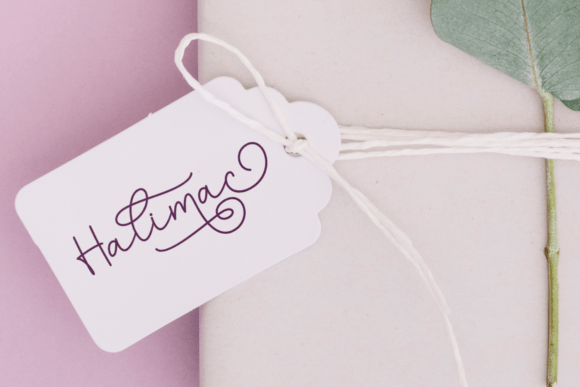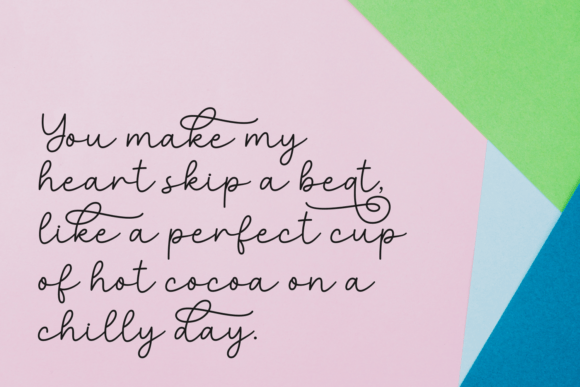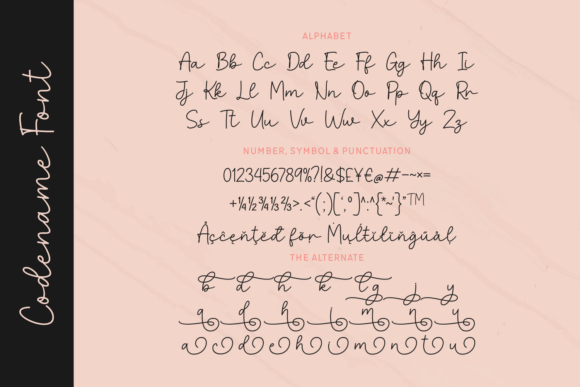
Codename Font: Elevate Your Designs with Elegance and Sophistication
In the world of typography, a font can make or break a design. For designers and crafters looking to add a touch of luxury and sophistication to their projects, Codename Font is an excellent choice. This elegant monoline script typeface is designed to impress, with its smooth flow, unique decorative swashes, and beautifully looping ligatures.
The Characteristics of Codename Font
Codename Font is a masterpiece of modern typography, boasting a delicate hand-drawn feel that sets it apart from other fonts. Its monoline script style is both elegant and refined, making it perfect for high-end branding, wedding materials, signature logos, and editorial designs. The font’s smooth flow and unique decorative swashes add a touch of personality to any design, while its beautifully looping ligatures create a sense of movement and fluidity.
Perfect for High-End Designs
Codename Font is designed to bring a touch of luxury to any design. Its elegant style and subtle personality make it ideal for adding a luxe handwritten charm to both feminine and professional projects. Whether you’re working on a high-end branding campaign, a wedding invitation, or a signature logo, Codename Font is the perfect choice. Its sophisticated style will elevate your design and leave a lasting impression on your audience.
Key Features of Codename Font
- Elegant Monoline Script Style: Codename Font features a sleek and refined monoline script style that’s perfect for high-end designs.
- Unique Decorative Swashes: The font’s unique decorative swashes add a touch of personality to any design.
- Beautifully Looping Ligatures: Codename Font’s beautifully looping ligatures create a sense of movement and fluidity.
- Delicate Hand-Drawn Feel: The font’s delicate hand-drawn feel sets it apart from other fonts and adds a touch of sophistication to any design.
Why Choose Codename Font?
With so many fonts available, why choose Codename Font? The answer lies in its versatility and elegance. Codename Font is perfect for designers and crafters who want to add a touch of luxury to their projects without sacrificing readability. Its elegant style and subtle personality make it ideal for a wide range of designs, from high-end branding to wedding materials and editorial designs.
Tips for Using Codename Font
To get the most out of Codename Font, here are a few tips:
- Use it as a Headline Font: Codename Font is perfect for headlines and titles, where its elegant style and decorative swashes can really shine.
- Pair it with a Sans-Serif Font: For body text, pair Codename Font with a clean sans-serif font to create a striking contrast.
- Experiment with Swashes: Don’t be afraid to experiment with Codename Font’s unique decorative swashes to add personality to your design.
In conclusion, Codename Font is an elegant monoline script typeface that’s perfect for designers and crafters looking to add a touch of luxury to their projects. With its smooth flow, unique decorative swashes, and beautifully looping ligatures, Codename Font is ideal for high-end branding, wedding materials, signature logos, and editorial designs. Its elegant style and subtle personality make it a versatile font that can be used in a wide range of designs.